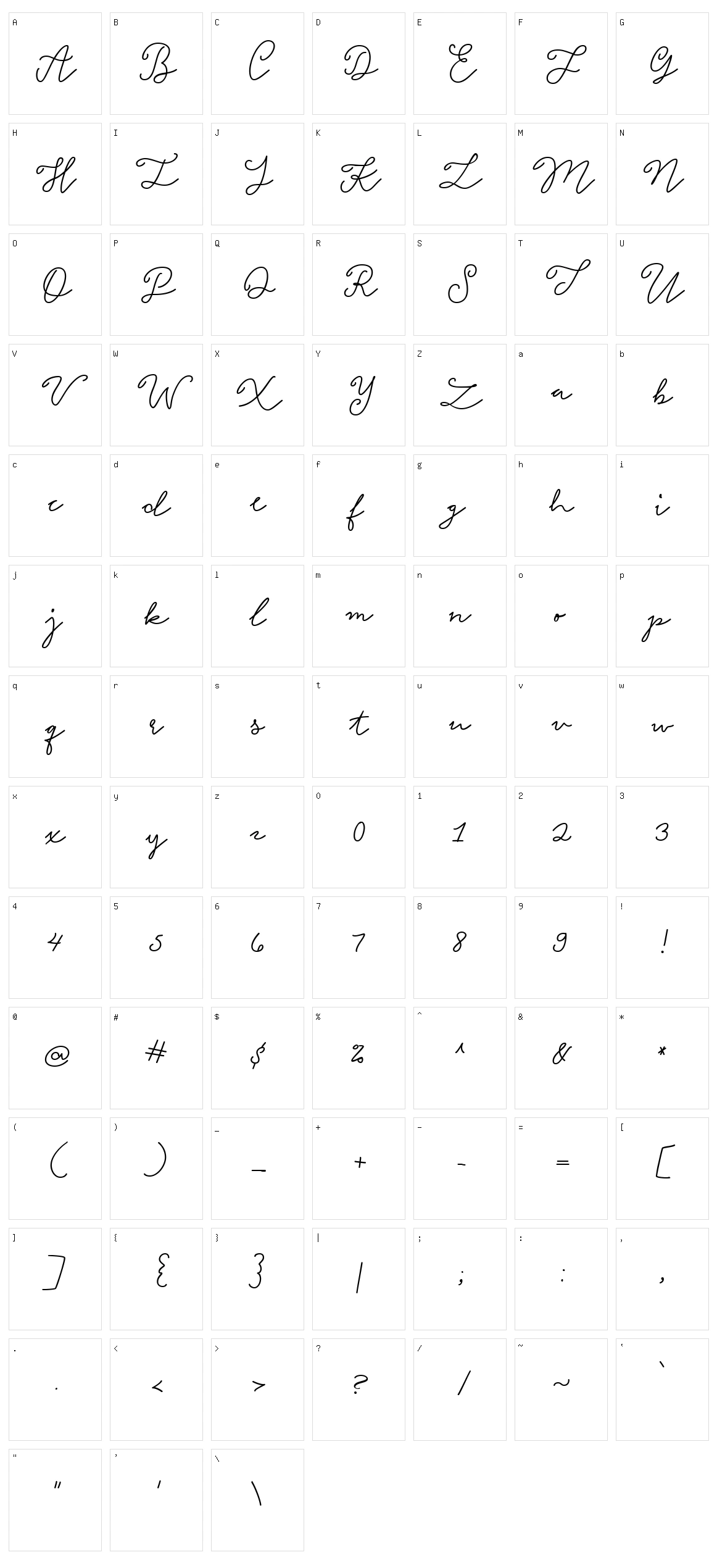
The free font Unicorn Confetti is carefully designed by Misti's Fonts, showcasing a thoughtful balance of creativity and usability and falls under the Script font style. When you download the ZIP file, it contains only 117.47 KB of font files, making it lightweight and quick to download. Please review the license details below to understand permitted usage and distribution rights. If license information is not available, we recommend using this font for personal projects only or contacting the author directly for commercial usage permissions.